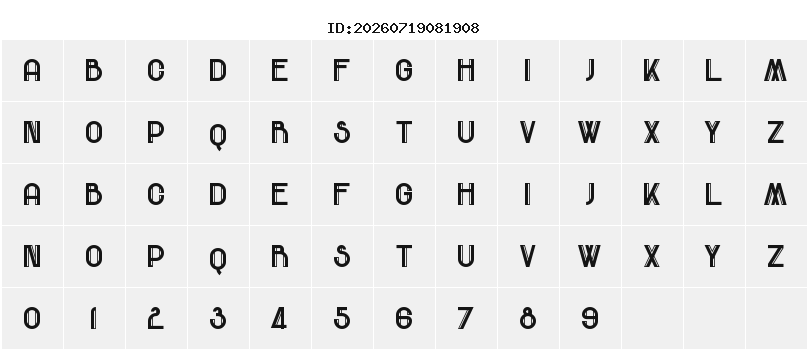
Come Rain Or Fall Preview
• Font Name: Come Rain Or Fall
• Full Font Name: Come Rain Or Fall
• Version: Version 1.00 March 5, 2014, initial release
About Come Rain Or Fall.otf
Come Rain Or Fall.otf is a modern, elegant sans-serif font designed for ultimate readability and visual harmony. Perfect for branding, headlines, web design, and print materials.